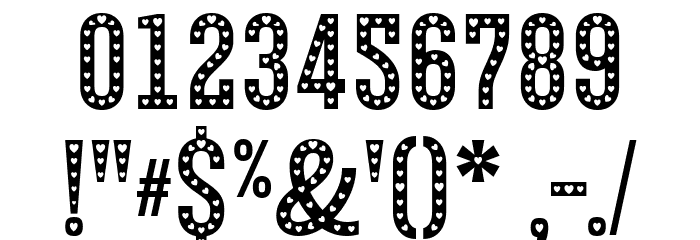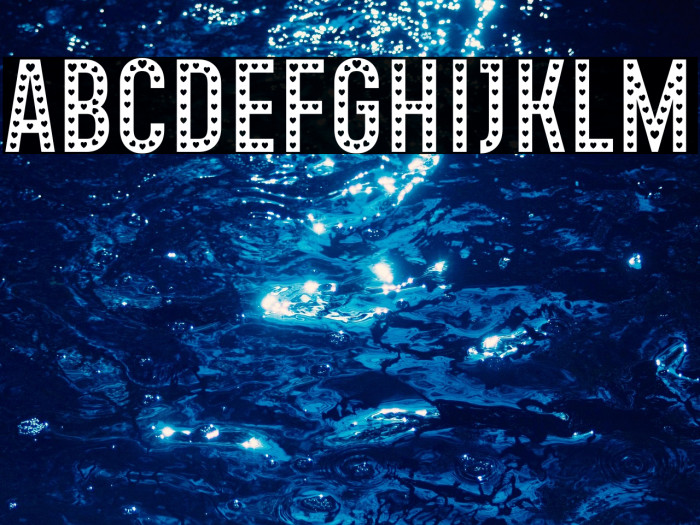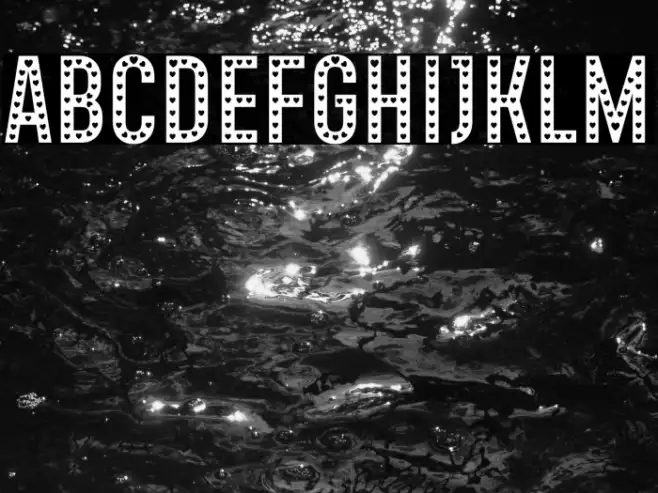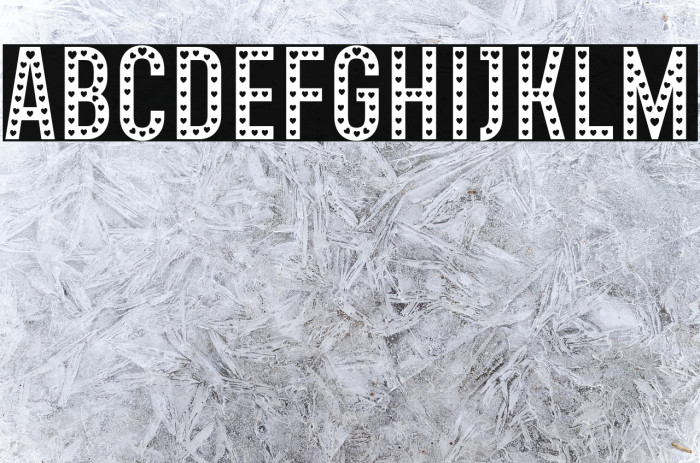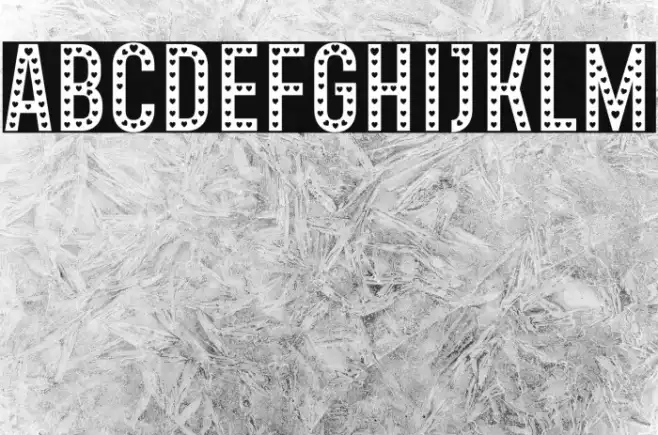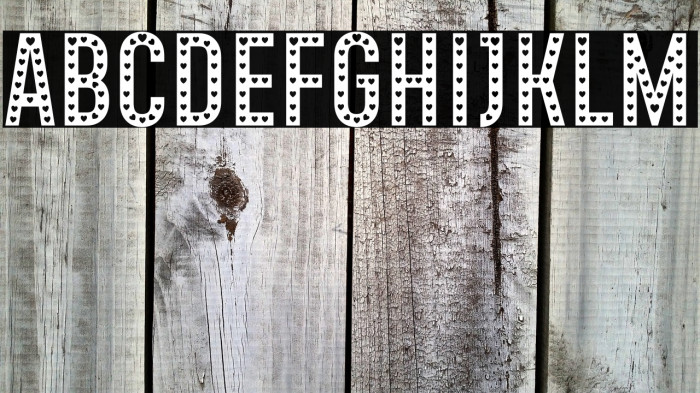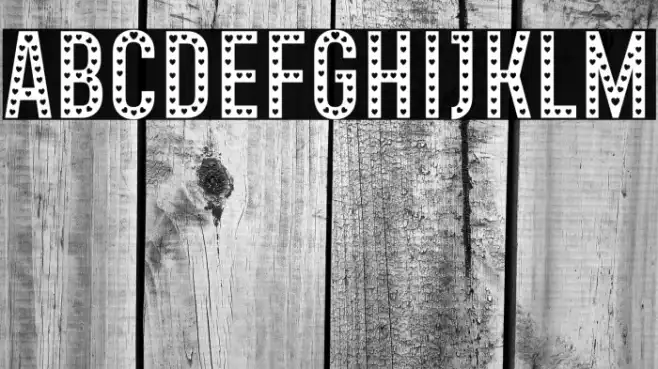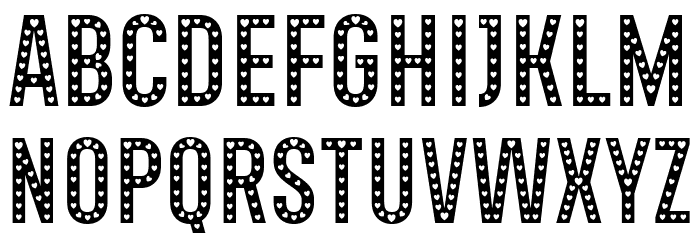
Xhers Alove Font
Xhers Alove Description
This decorative font features bold, uppercase and lowercase letters, numbers, and special characters, each adorned with a pattern of small heart shapes. The design is playful and eye-catching, making it ideal for projects that require a touch of whimsy and charm. The characters are evenly spaced and maintain a consistent width, contributing to a balanced and harmonious appearance. The heart embellishments add a unique texture, making the font stand out in creative and festive contexts. Its bold weight and decorative style make it suitable for headlines, posters, and other display purposes where a fun and engaging look is desired.
| Proposed Projects | Ideal for Valentine's Day cards, wedding invitations, playful branding, and festive event posters. |